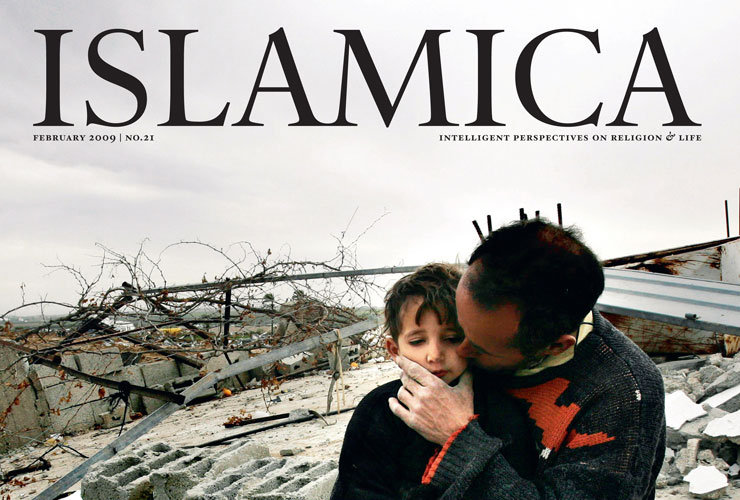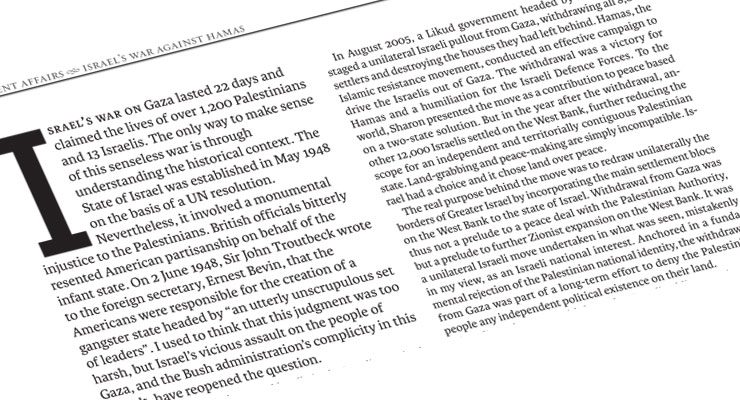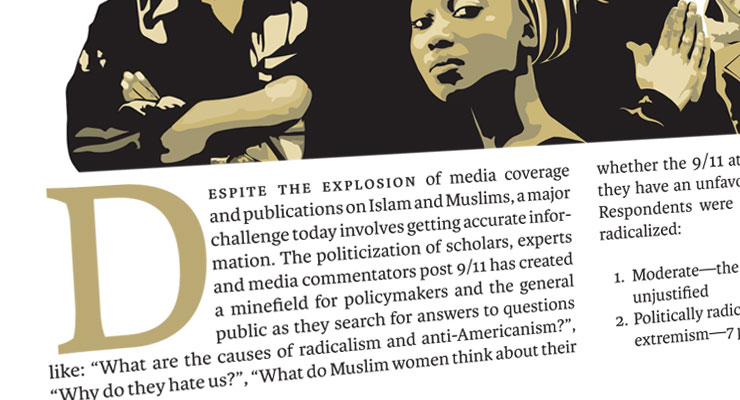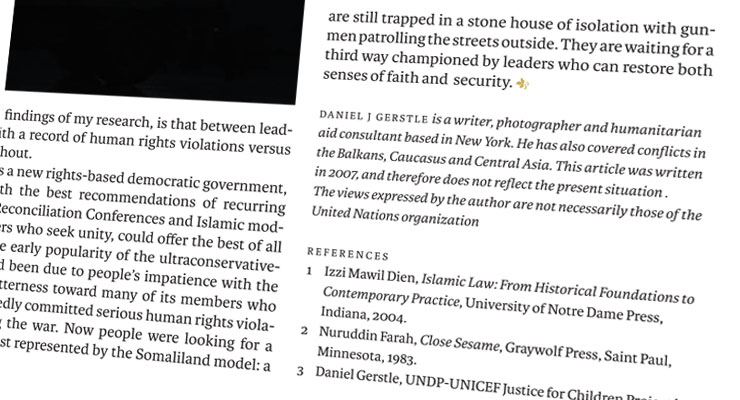
The award-winning Islamica Magazine is widely regarded as the most respected and authoritative glossy English-language Muslim periodical in the world. Founded in 1992 at the London School of Economics, Islamica covers issues in religion, current affairs, Islamic finance, society, and the arts, bringing together leading voices from the diplomatic, political, religious, academic, media, professional and artistic world. It is a “must-read” for all thought leaders on Muslim affairs.
The redesign is enforcing their authority on the subject. It was decided to use
Karmina as text typeface and to
redesign their bodoni-style
logotype. We were asked to develop something more humanistic with classical proportions that would reflect the magazine's reputation.
The proplematic letter combinations LA and AM were solved by a stronger tilt on L's serif and a fluid connection between the AM serifs. The rather unusual serif on the bottom of the C comes from the client's brief to avoid any visual connection to the Islamic halfmoon symbol.